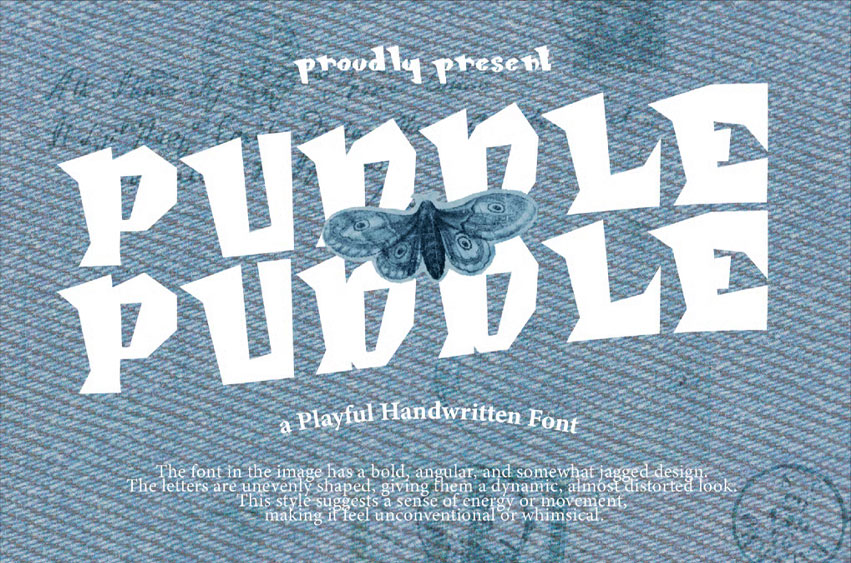
Purple Puddle Font is a playful, handwritten font that brings boldness and energy to any project.
Its angular and somewhat jagged design gives the letters a dynamic, almost distorted look, evoking a sense of movement and unpredictability.